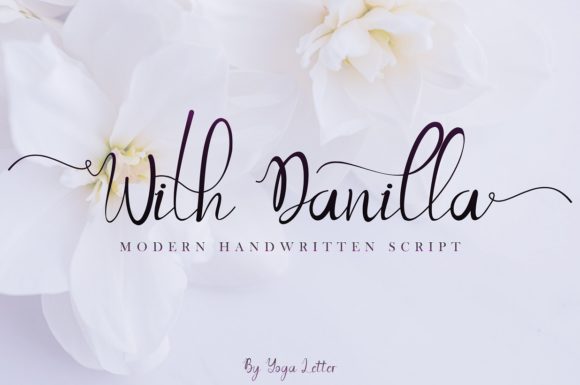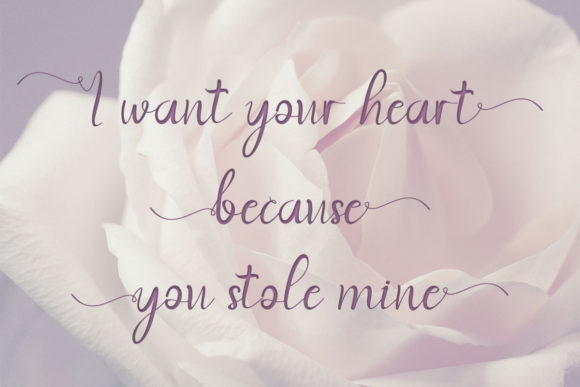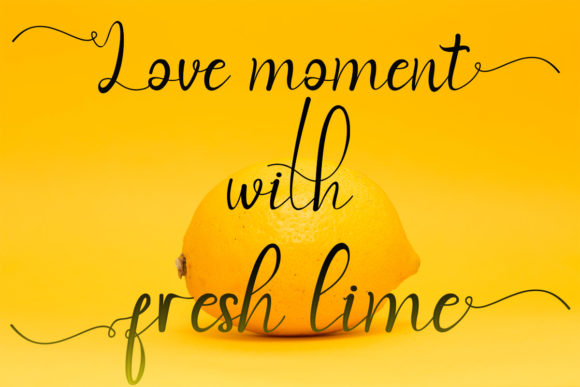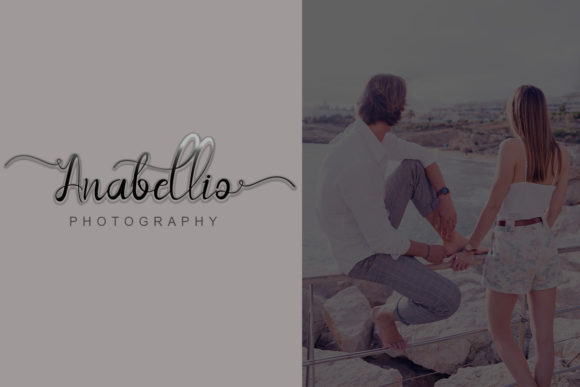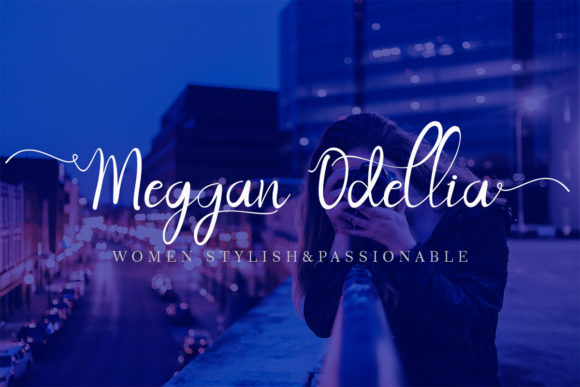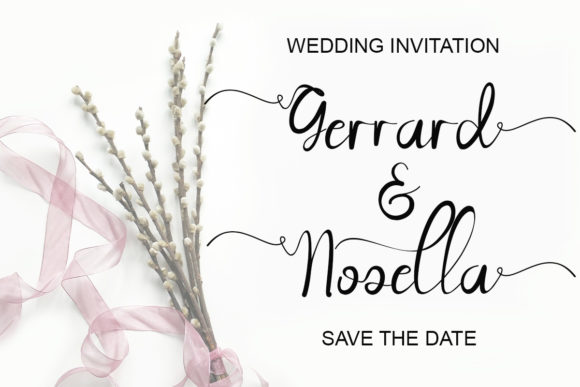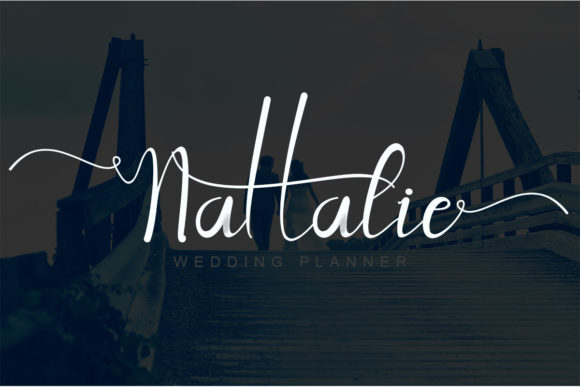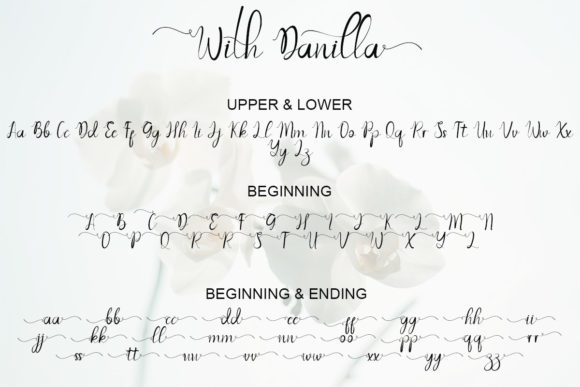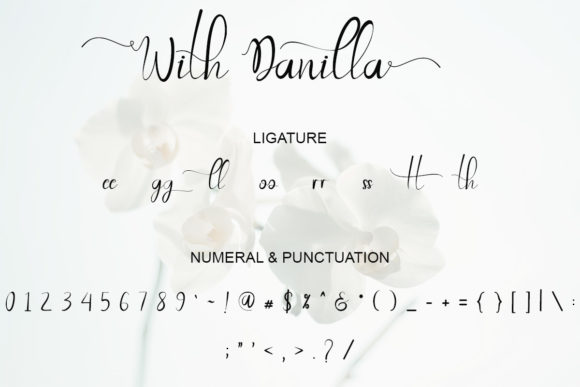
With Danilla Font
About With Danilla Font
With Danilla is a modern handwritten script. It features a varying baseline, smooth lines, gorgeous glyphs and stunning alternates. Fall in love with its authentic feel and use it to create gorgeous wedding invitations, beautiful stationary art, eye-catching social media posts, and cute greeting cards.